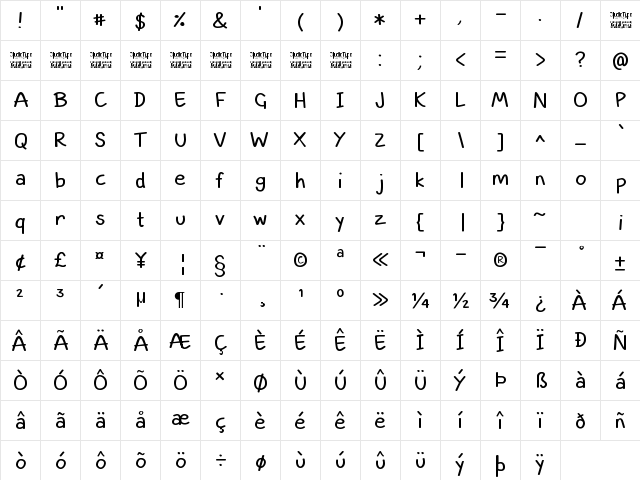
Smart Kid Regular Font Preview
Smart Kid Regular
Smart Kid Regular Font Details
Design Context for Smart Kid Typeface
Smart Kid is a composed and adaptable typeface that performs quietly and consistently across a wide range of design contexts.
Pro Tip: Pair Smart Kid with a font of contrasting weight or personality to build a more expressive typographic hierarchy.